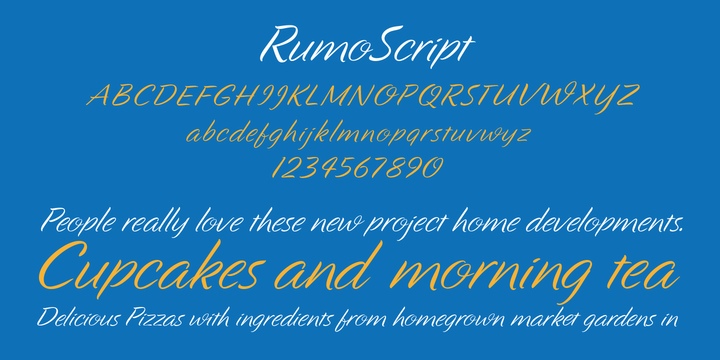
Rumo Script Font
Rumo Script Font is perfect for elegant wedding stationery, luxury brand calligraphy, boutique fashion logos, artisan bakery signage, romantic greeting cards, high-end beauty product packaging, sophisticated restaurant branding, handwritten social media quotes, personal blog headers, and exclusive event invitations. This graceful typeface excels in applications where flowing elegance, personal touch, and romantic sophistication are essential brand characteristics.
What makes Rumo Script Font exciting is its exquisite flowing rhythm that masterfully captures the natural movement of skilled calligraphy with contemporary refinement and versatility. The font features beautifully connected letterforms with organic curves and elegant flourishes that create seamless word formations while maintaining exceptional readability. Its sophisticated balance between traditional script artistry and modern functionality makes it perfect for brands seeking to convey both timeless elegance and contemporary relevance in their visual communications.
The Rumo Script Font family typically includes Regular and Bold weights, often accompanied by an extensive collection of swashes, ligatures, and decorative alternates that enhance its calligraphic appeal. Many versions feature beginning and ending swashes, contextual alternates that improve letter connections, and ornamental elements including flourishes, borders, and decorative frames. Some collections include complementary sans-serif companions and matching ornament fonts that provide comprehensive design solutions for cohesive brand systems.
Whether you're designing intimate wedding materials, developing luxury product branding, or creating content for lifestyle brands that value personal connection, Rumo Script Font Free Download offers the authentic handwritten elegance that emotionally engages audiences. Its warm personality makes it ideal for brands seeking to establish genuine relationships through personalized design approaches. The font's ability to convey both sophistication and approachability makes it particularly valuable for premium service providers and artisanal businesses seeking to differentiate themselves through authentic craftsmanship and personal attention to detail.